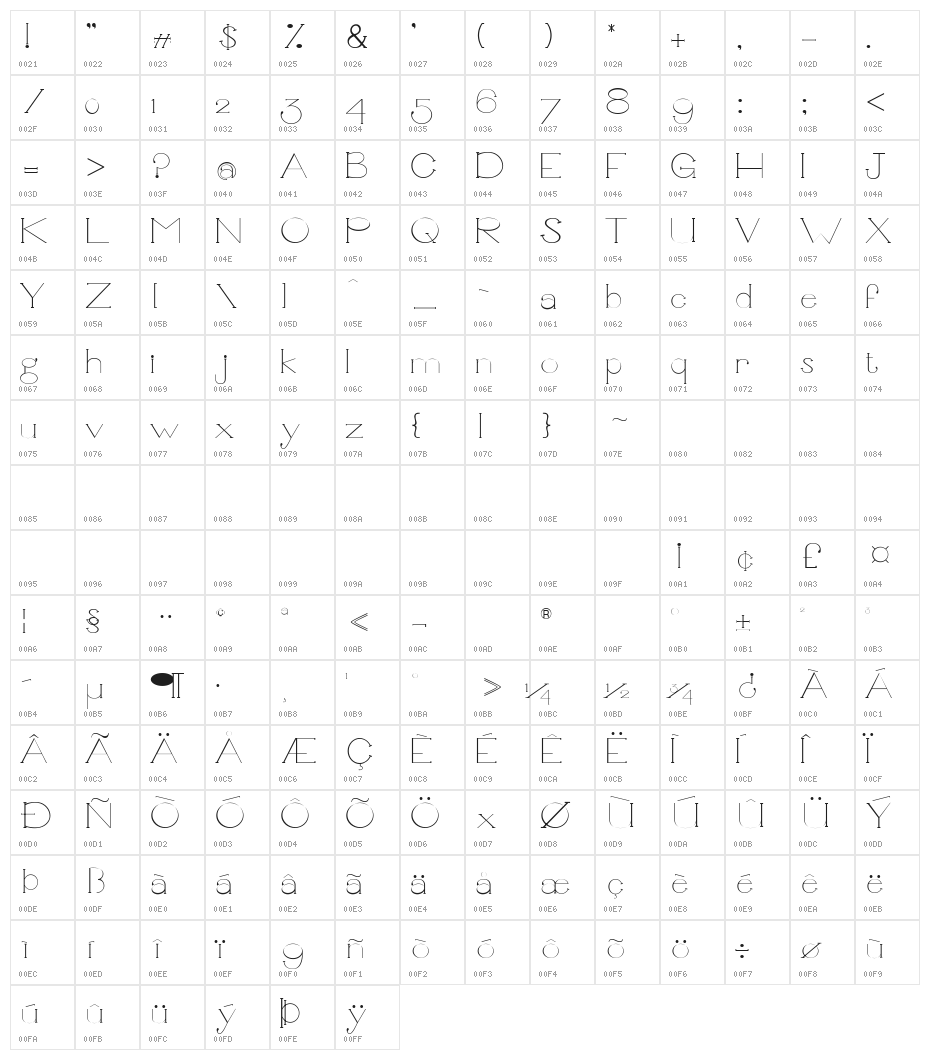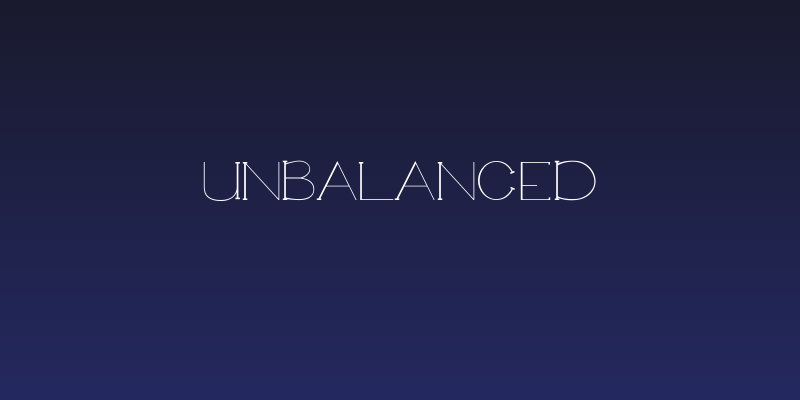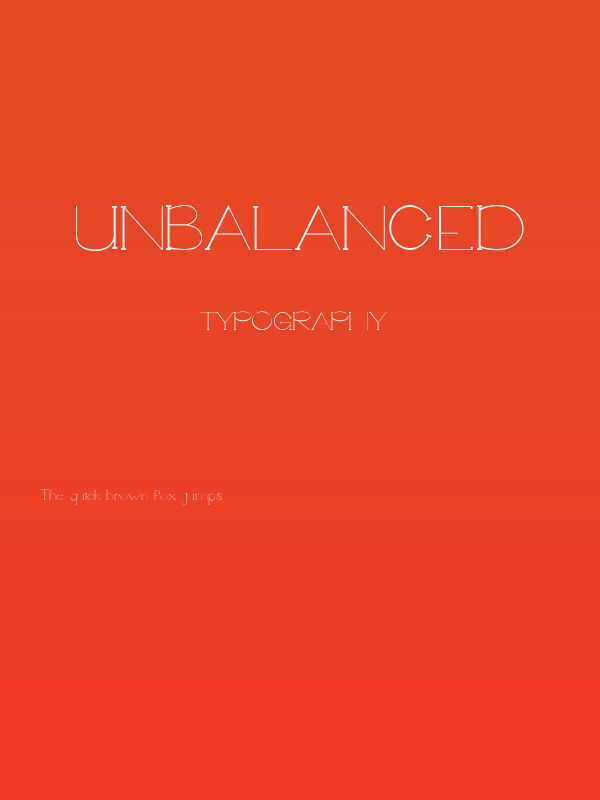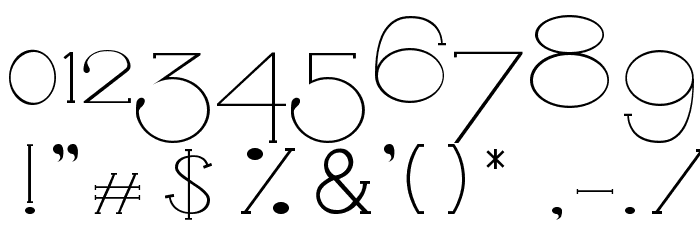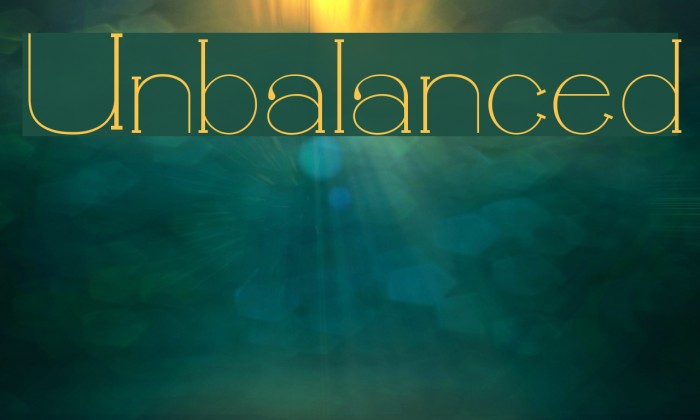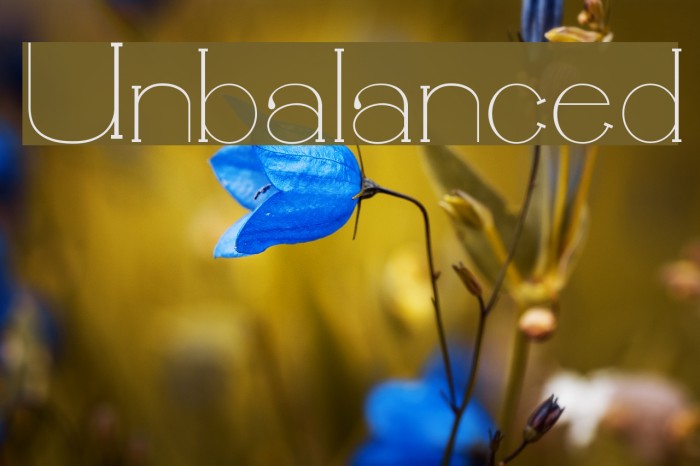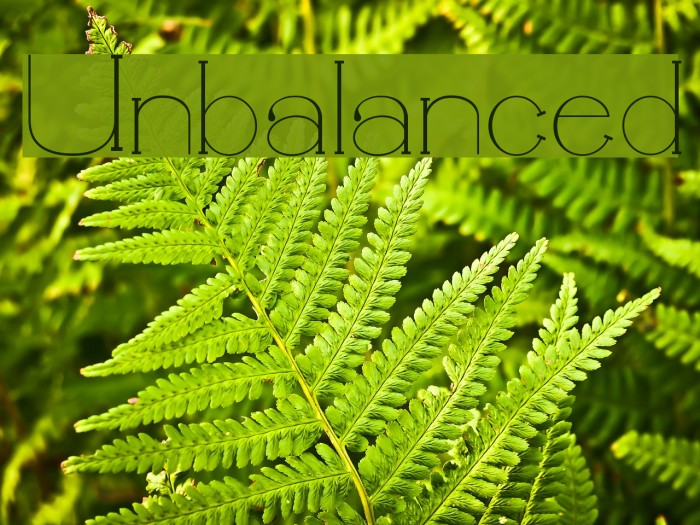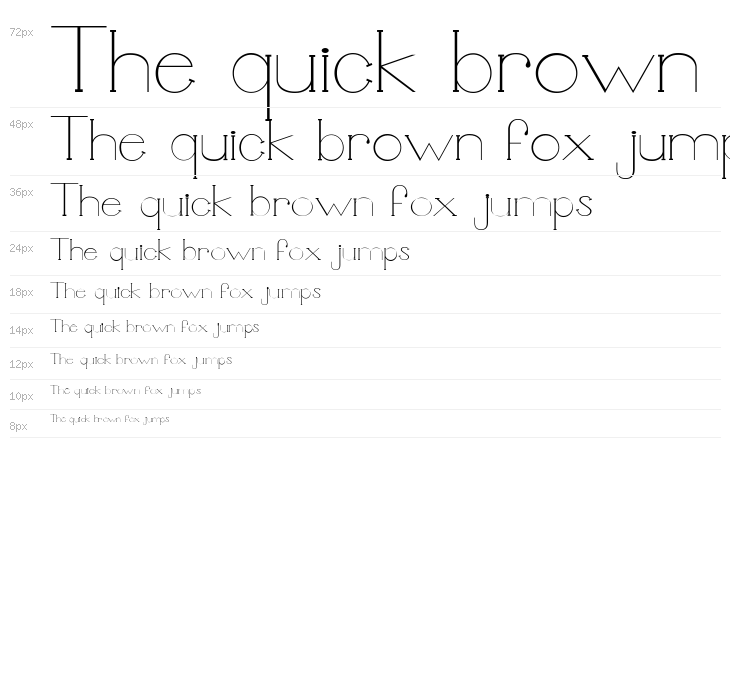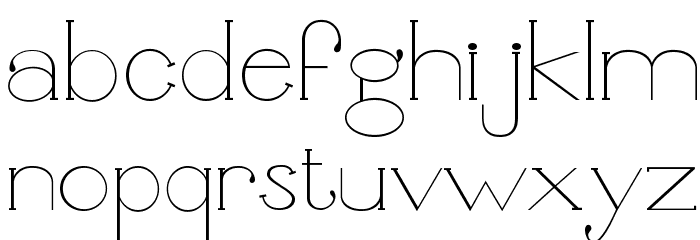
Unbalanced Font
Unbalanced Description
This font features a unique and artistic design with a modern twist. The characters are composed of thin lines with occasional circular elements that add a playful and creative touch. The uppercase letters are tall and elegant, while the lowercase letters maintain a consistent style with a slightly whimsical flair. Numbers are designed with a similar aesthetic, incorporating both straight and curved lines. The special characters follow the same design principles, ensuring a cohesive look across all elements. This font stands out due to its distinctive style, making it suitable for projects that require a touch of creativity and modernity.
| Proposed Projects | Ideal for creative projects, modern branding, artistic posters, and unique invitations. |